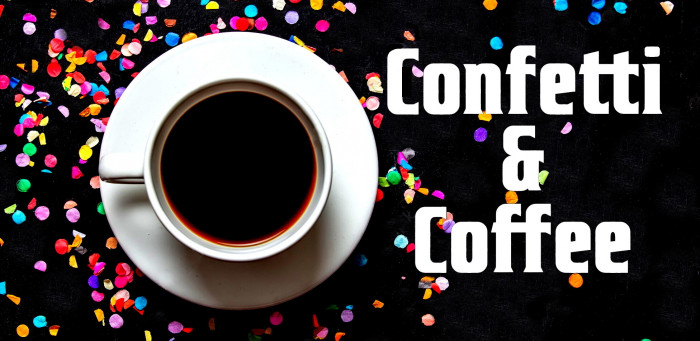
• You can find an additional "S" in the "§" glyph. There are also new ligatures "ff" and "tt" which are in the places of "fi" and "fl". (See also zenantoo.) Enjoy, please.
You can find an additional "S" in the "§" glyph. There are also new ligatures "ff" and "tt" which are in the places of "fi" and "fl". Enjoy, please.
absolutely loving the last sample, compliments the font quite well~
Nothing short of amazing as usual mate..
The overall appearance looks rock solid, and I really love how the wedge serifs give it a instant western / wood type vibe!
@Sed4tives: Thank you, pal! I didn't mean to, but now that you mention it, these letters looks a bit like some wooden ones I remember seeing.
@Yautja: You make me blush. That's really the basic idea of some of my latest fonts: to see how far FontStruct allows you to go using current tools to get professional-looking typography. Thanks, compañero!
Another great font, these serifs are excellent!
Ohhh, the godfather! Awesome!